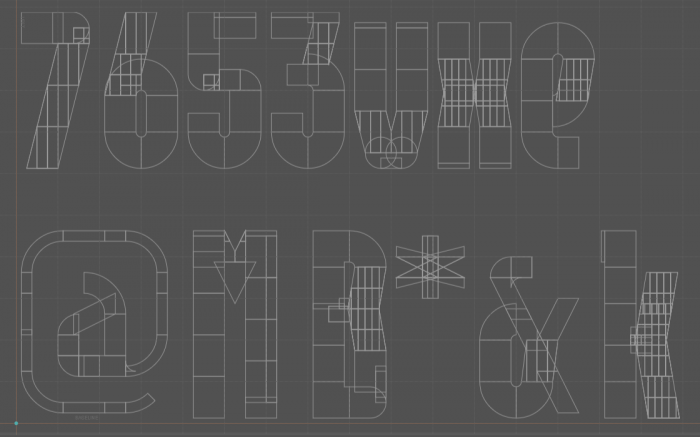
STF_GEO-GOTHIQUE - Geometric semi-serif gothic grotesk typeface.
A peek under the hood!
nice Q and @
Is of connectors?
What do you mean? connection bricks I guess? If so, yes it's made of those!
And for some thinner strokes I've used the thickest macaroni brick.